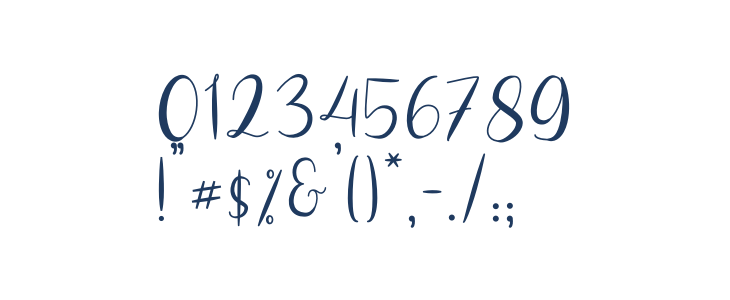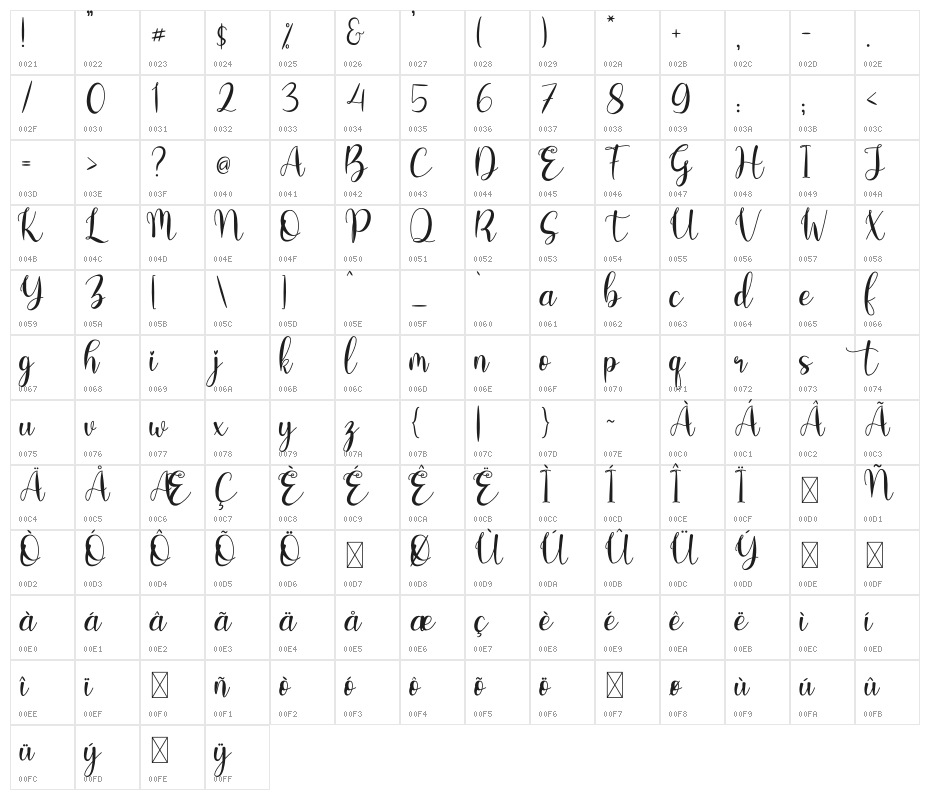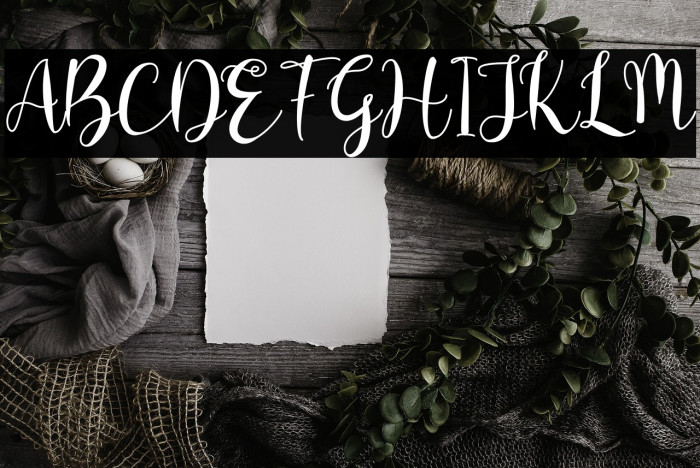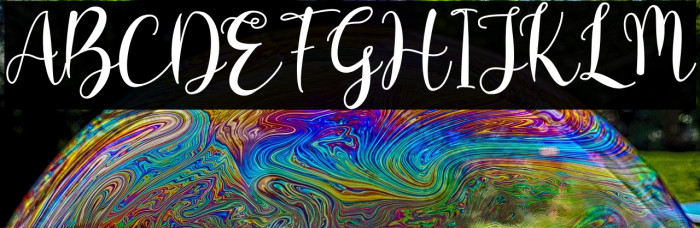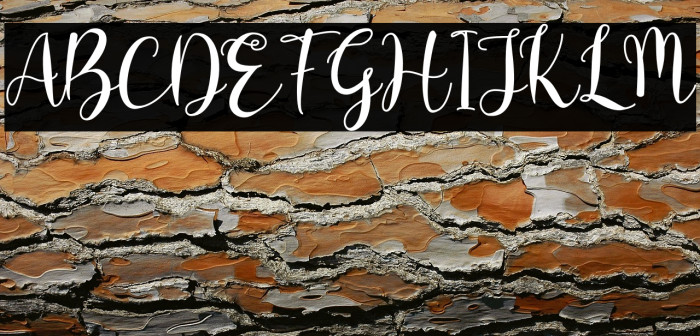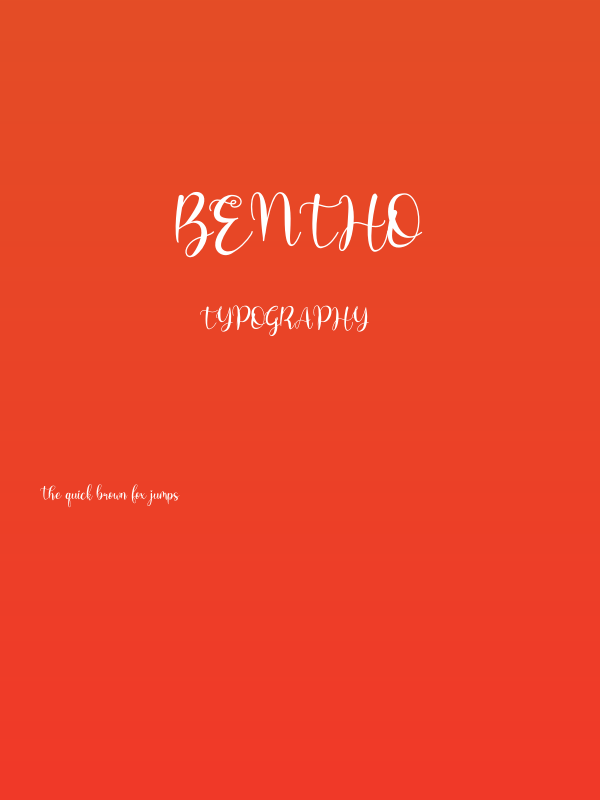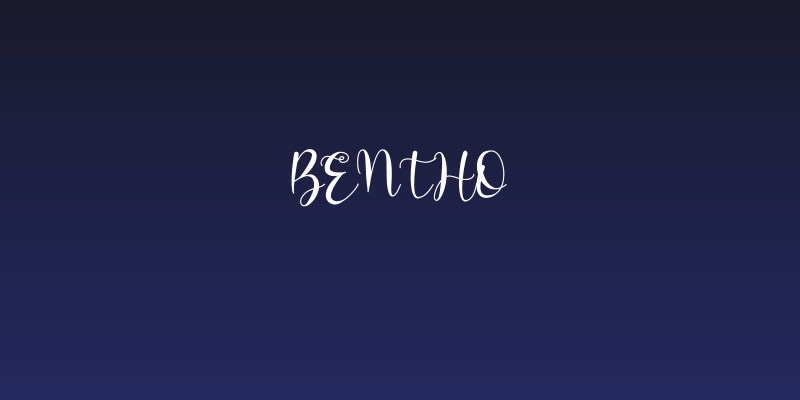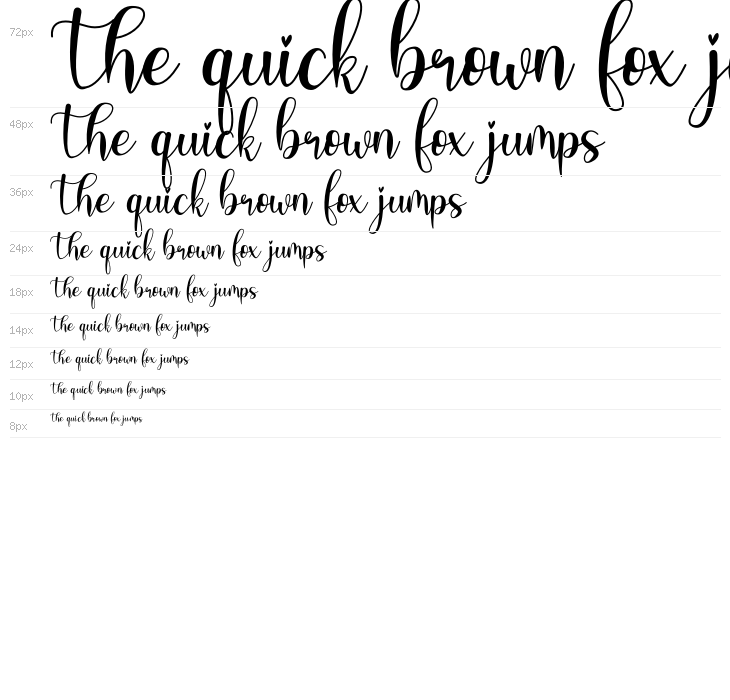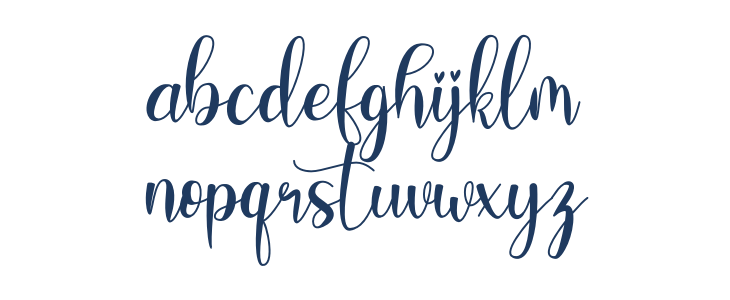
Bentho Font
Bentho Description
This font features a lively and expressive script style, characterized by its fluid, cursive strokes and elegant loops. The uppercase letters are bold and dynamic, with a playful yet sophisticated flair, while the lowercase letters maintain a consistent flow, enhancing readability. The numerals are distinct and well-proportioned, complementing the overall aesthetic. Special characters are creatively integrated, adding versatility to the font. The design exudes a sense of modern elegance, making it suitable for a variety of creative applications.
| Use Case | Logos, Headlines, Invitations |
| Proposed Projects | Ideal for wedding invitations, greeting cards, branding, and social media graphics. |